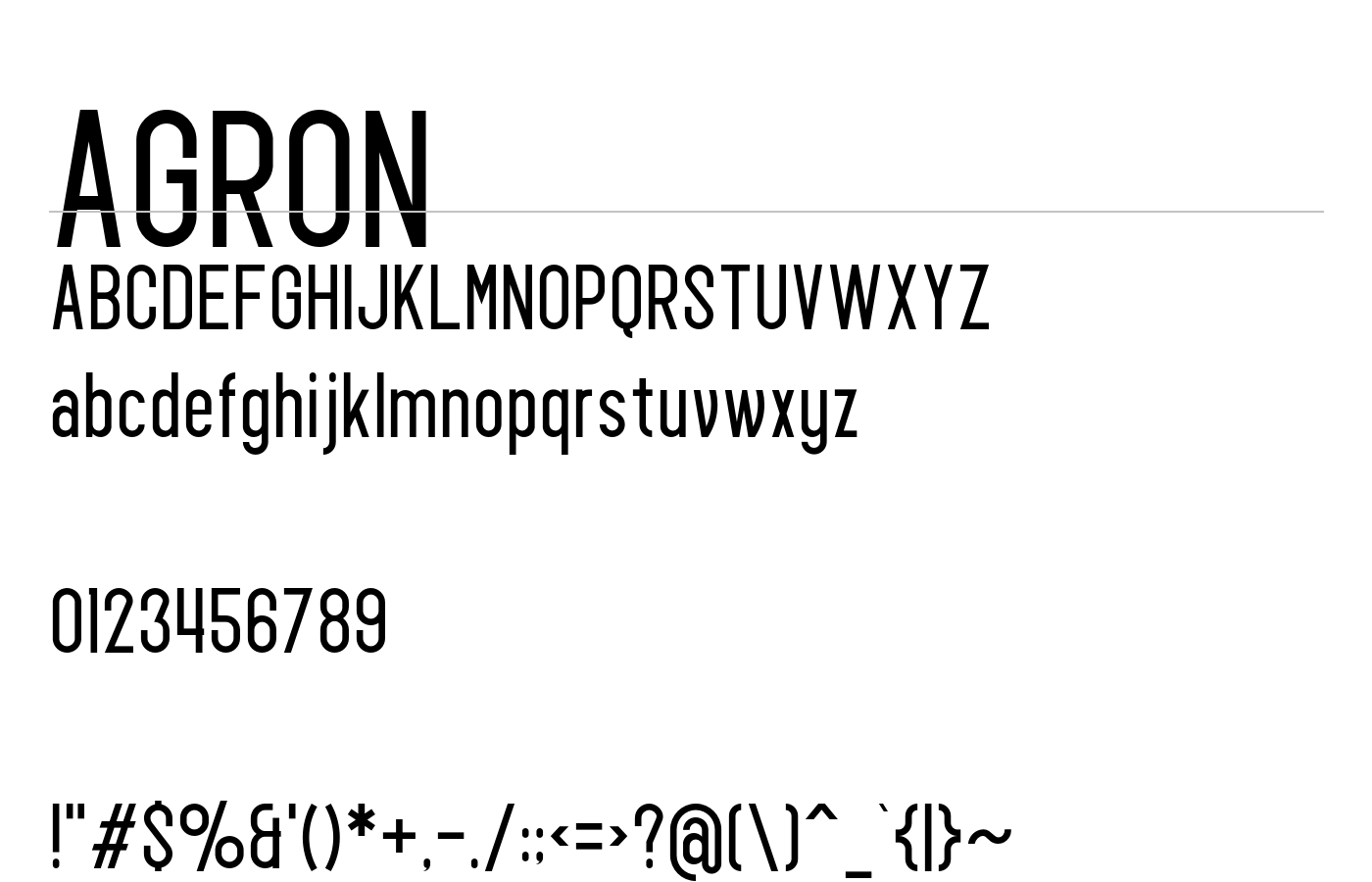
Agron is a tall, narrow sans serif font with a clean and modern appearance, featuring consistent stroke weight and minimal contrast. Its condensed letterforms and uniform spacing create a sleek, professional feel that works well for headlines, logos, and editorial design where space efficiency and clarity are essential. This font’s contemporary style makes it ideal for branding and digital projects seeking a sharp, stylish, and readable typeface.
AGRON Font
About AGRON Font